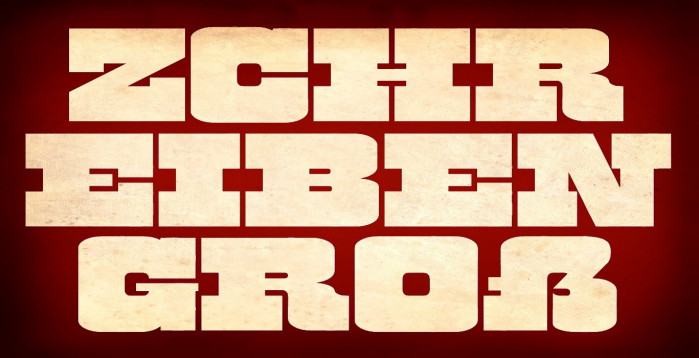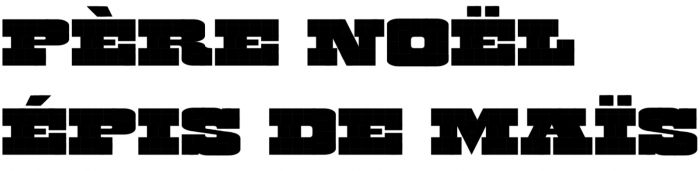
Unicase with alternates (a, e, m, n, u...). You can find also an extra "&" at the ™ glyph and a "c" at the ¢. Inspired on the wonderful Goliath (1970) by Vincent Pacella, but with its own personallity.
I'll make a comment which is more a personnal taste than an issue.
I'm a french speaker so we use diacritics. Your "dieresis" is good but for me I'll make it a llitte bit bigger to harmonise with the others diacritics , espacialy your font is black, diacritics can be strong :)
do some test maybe you're rigth and it's fine like this
@Upixel: You are absolutely right, mon ami. I've increased the size of the umlaut a bit and it seems to fit better, but I can't bring myself to make it bigger. What do you think now?
So incredible, yet you make it look so effortless. Amazing, as usual.
Nice heavy slab! I even see an arrow in the letter V. The diacritics on the letters also look nice, especially the tilde.
interesting "@" design...
@MimicMakingFonts: I found it easier to do it this way than to give it a more traditional look. Thanks for your comment.
What a stong work wow ! also I'm a big fan of fat slab, great work love it :)
dieresis: good job it's more balanced with the others, The french speaker is please :)